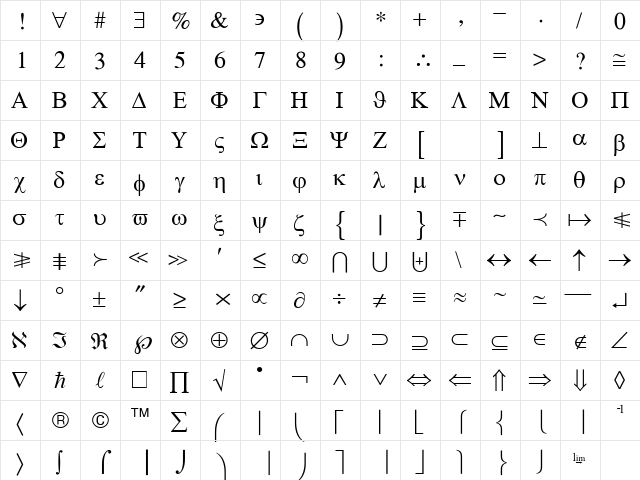
TkMath Regular
Design Context for TkMath Typeface
TkMath is a composed and adaptable typeface that performs quietly and consistently across a wide range of design contexts.